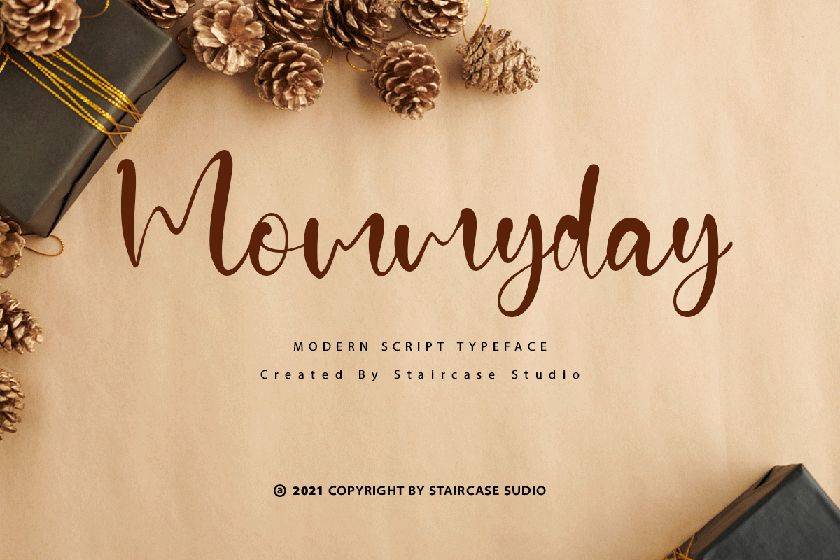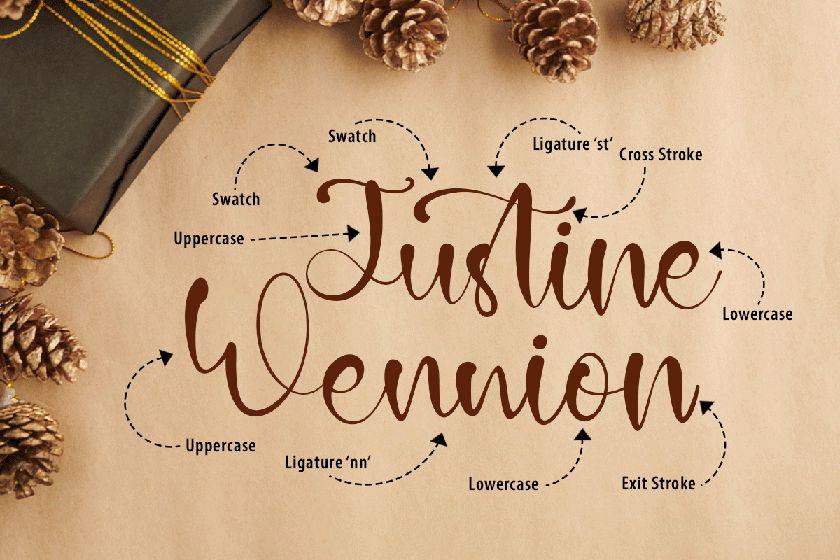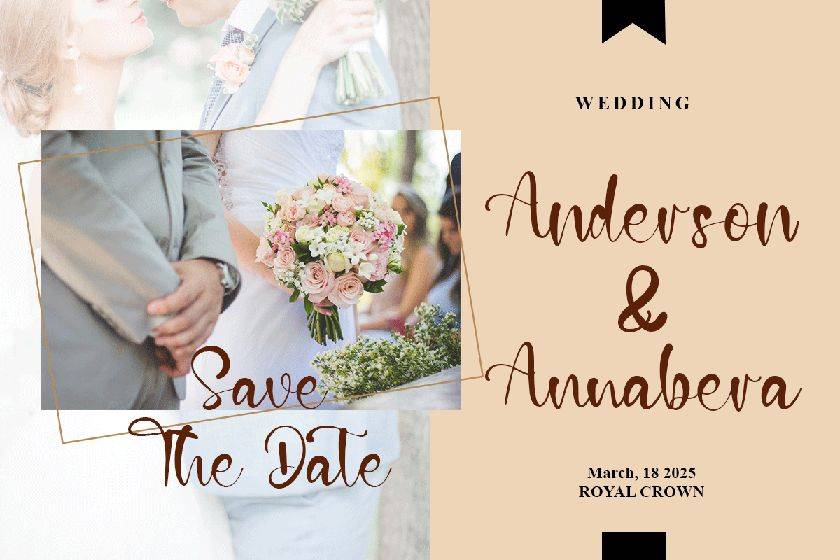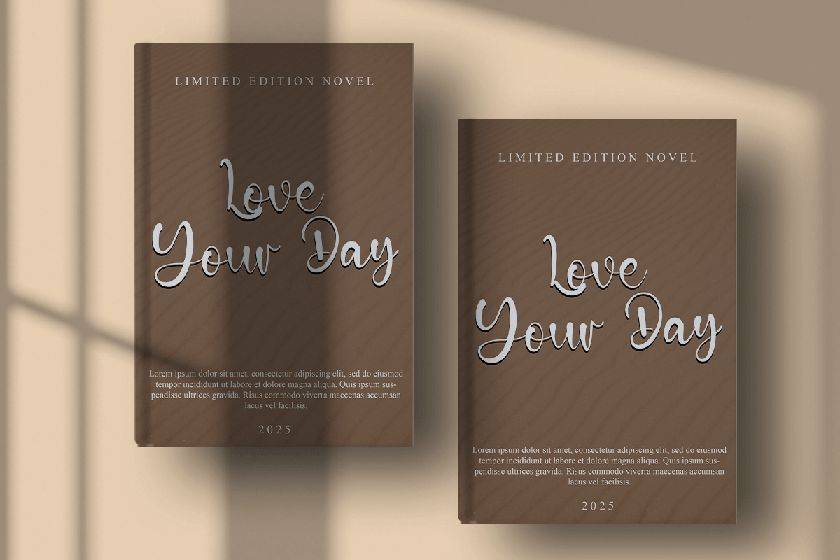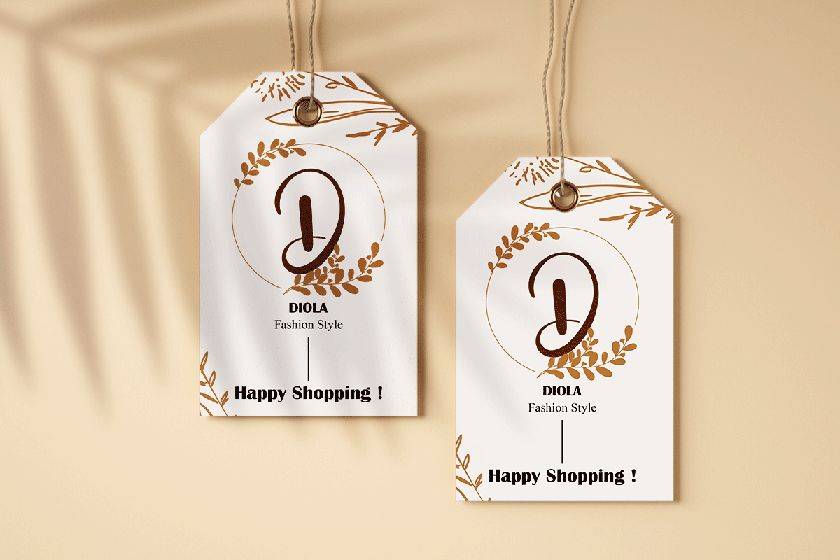
Mommyday is a playful and elegant script font with a hand-lettered, casual feel. Its flowing strokes and moderate contrast create a warm, inviting look that’s perfect for branding, invitations, and creative projects that want to convey charm and personality. This font works beautifully in headlines and logos where a personal, friendly touch is desired.
Mommyday Font
About Mommyday Font
| Font family | Mommyday Font |
| Designer | Staircase Studio |